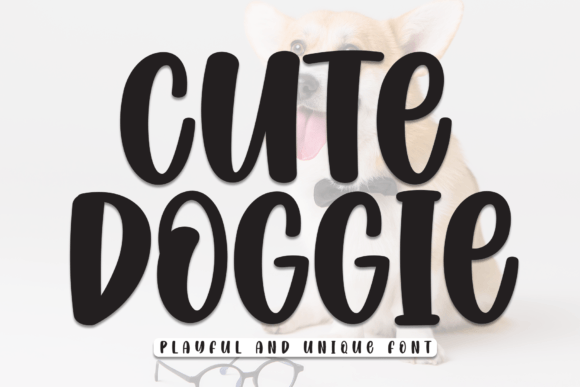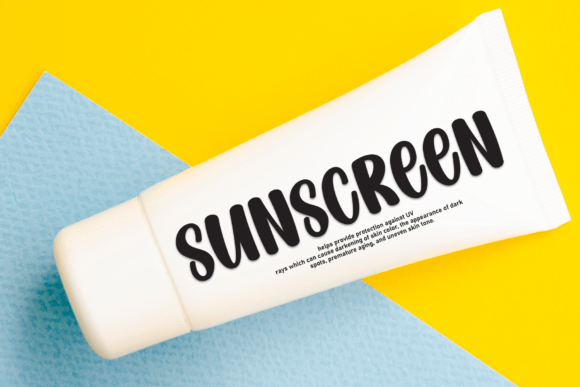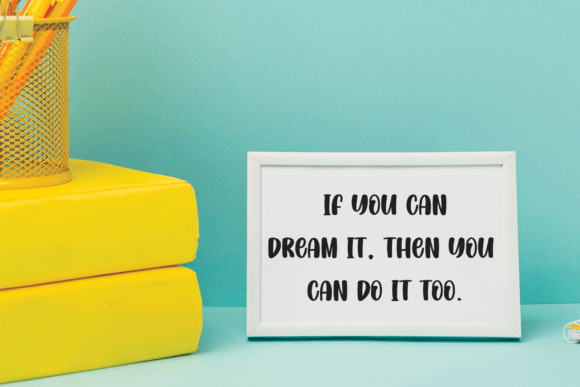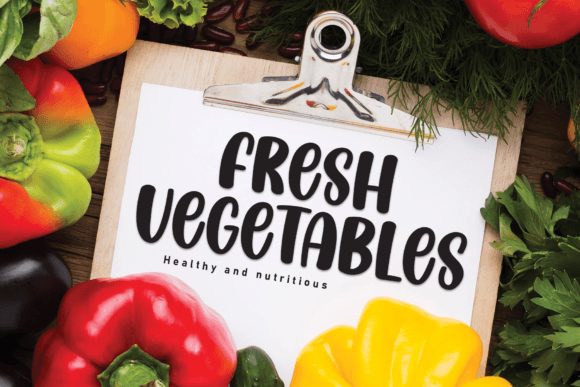
Cute Doggie Font: A Playful Handwritten Font for Cricut & Crafts
About the Cute Doggie Font
Welcome to the world of Cute Doggie Font, a typeface that will inspire your next great project. Cute Doggie is a casual handwritten font exuding playfulness and charm. With its whimsical strokes and friendly demeanor, it captures the spirit of a loyal companion. Perfect for children’s books, greeting cards, and crafting, Cute Doggie adds a delightful touch to any project with its endearing character.
Its playful nature makes it ideal for projects targeting a young audience, such as children’s branding, playful logos, and packaging for toys or pet products. It also works well in short, impactful headlines or quotes on social media. However, Cute Doggie’s informal style is unsuitable for body text or situations requiring high readability, like websites or lengthy documents.
Pairing Cute Doggie with a clean sans-serif font like Open Sans for body text provides excellent contrast and readability. For a more sophisticated look, consider pairing it with a classic serif like Garamond for a balanced, playful yet refined feel. Avoid pairing it with other overly decorative scripts, as this could lead to visual clutter.
Cute Doggie’s core personality is undeniably friendly and approachable, conveying a sense of warmth and lightheartedness. This makes it a strong choice for brands wishing to project a cheerful, approachable image.